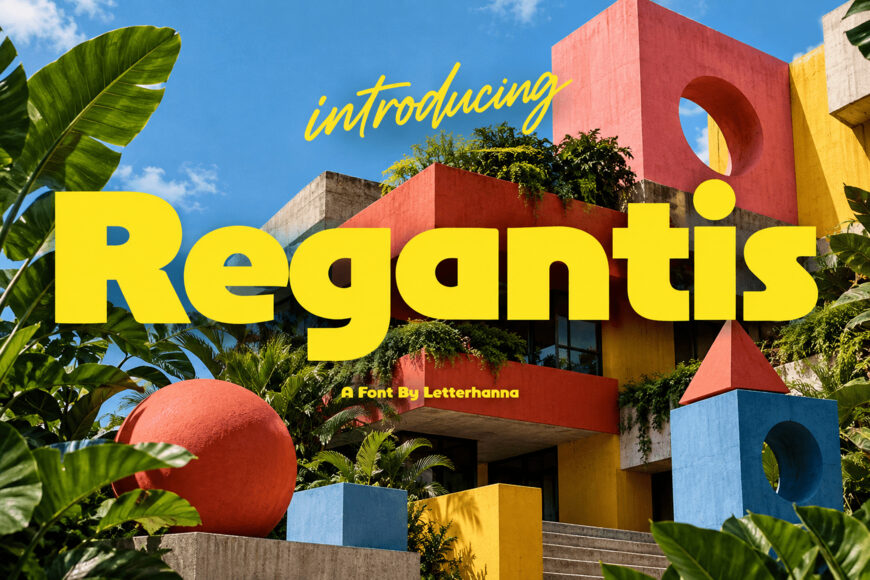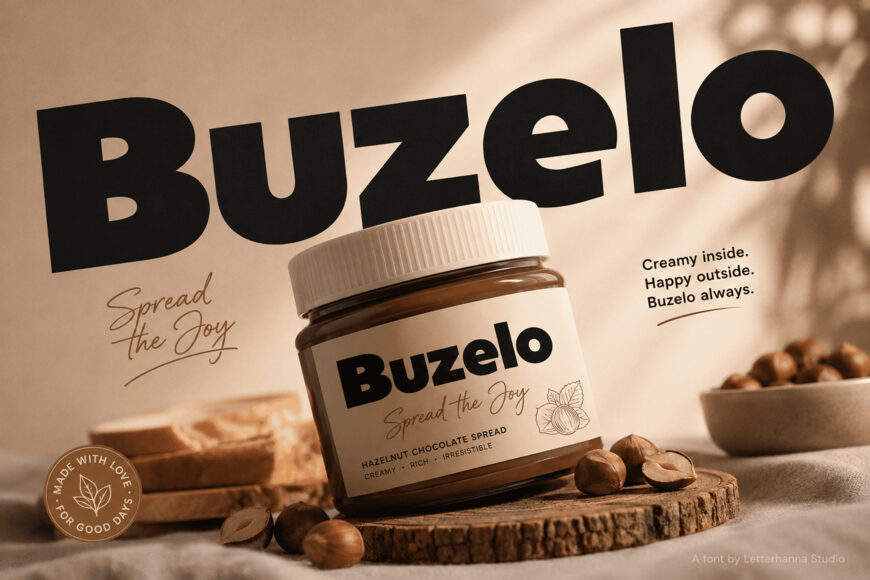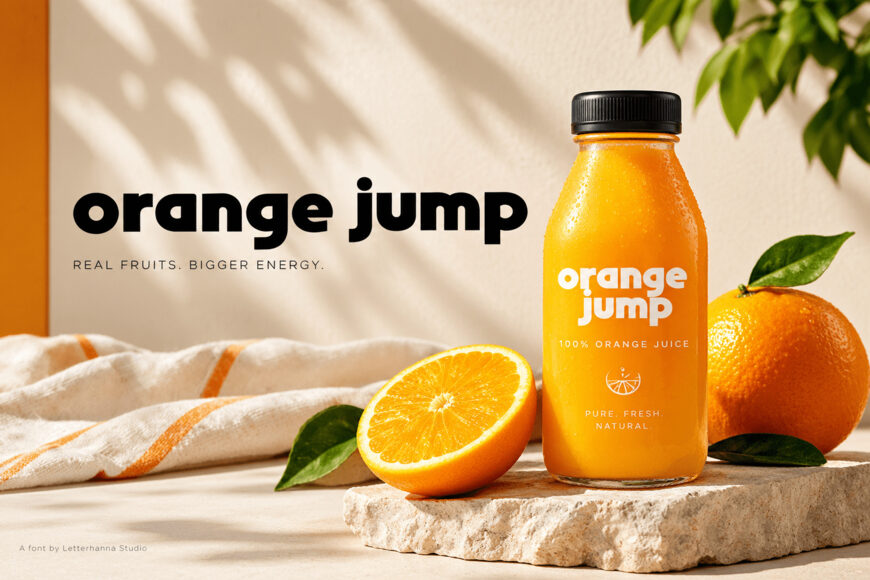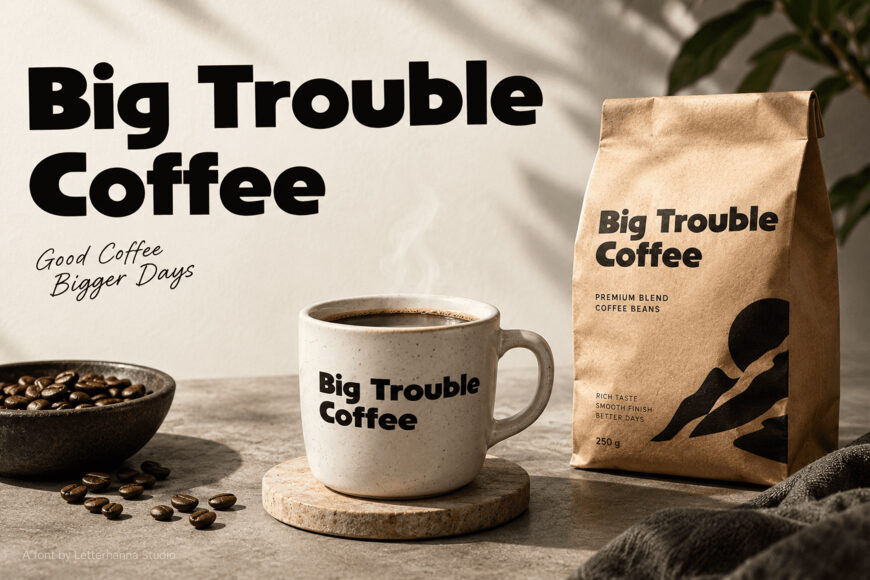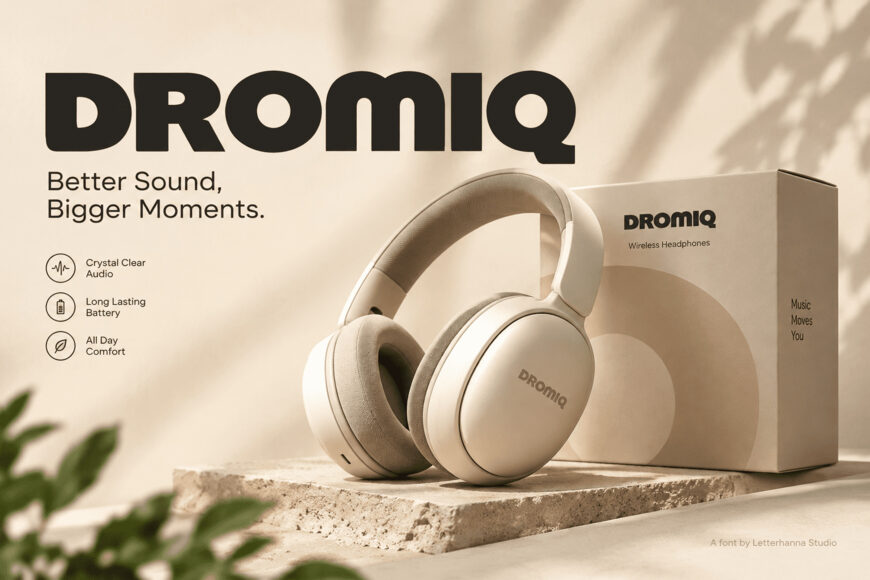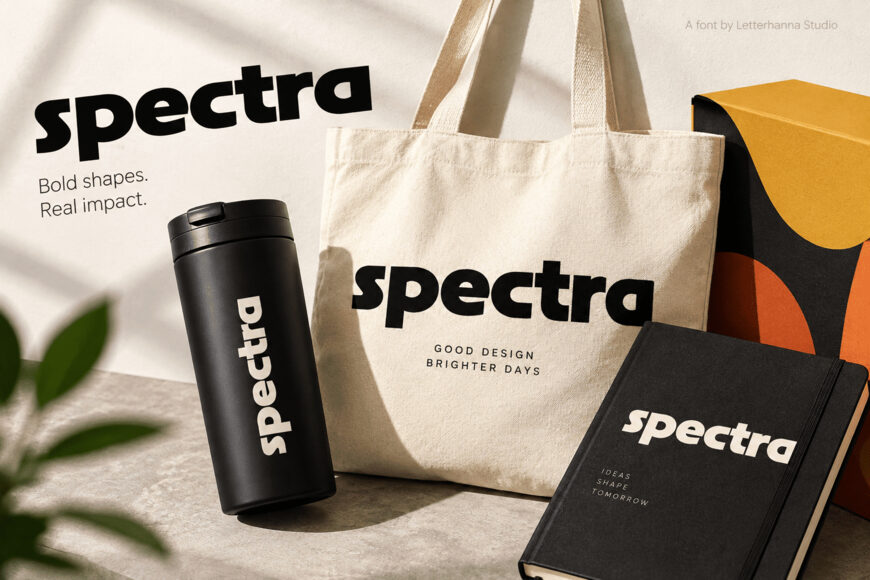
Regantis Font
What emerges when geometric structure collides with oversized, playful forms? Regantis—a bold display typeface designed for work that demands attention. Built from sturdy geometry, heavy strokes, rounded shapes, and striking negative spaces, Regantis has an unmistakable visual identity.
Modern, experimental, quirky, and confidently unconventional, it goes beyond ordinary bold typography. A strong font catches the eye; an exceptional one holds it. Regantis exaggerates familiar geometric details into unexpected proportions, creating a rhythm that feels both orderly and unpredictable